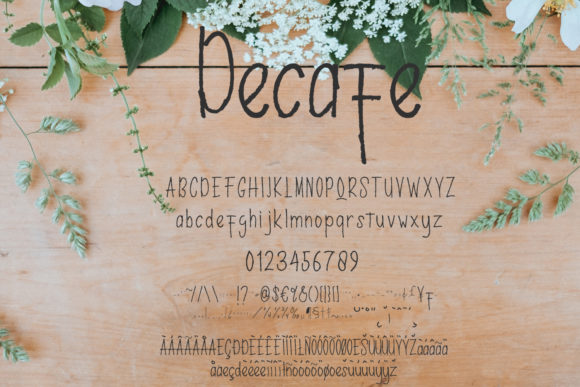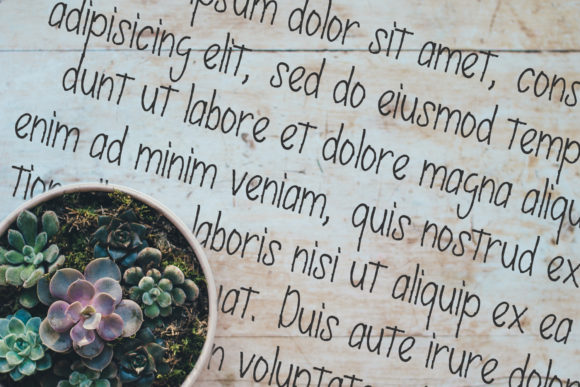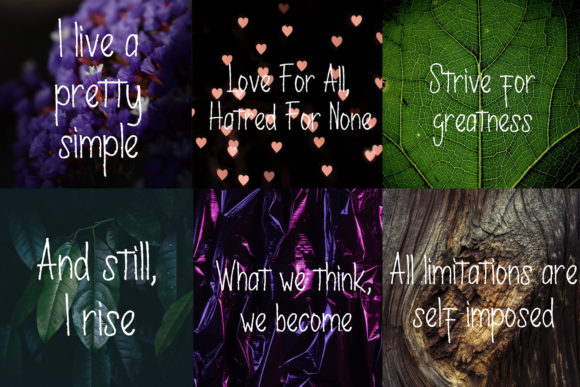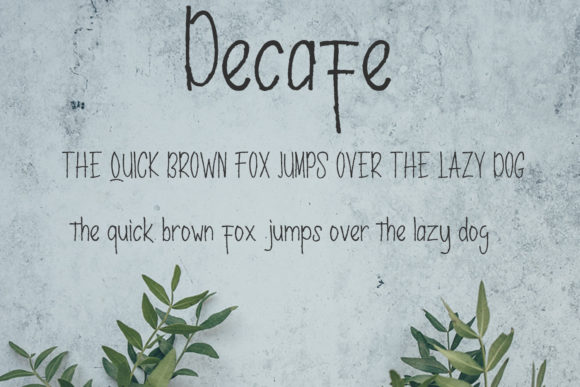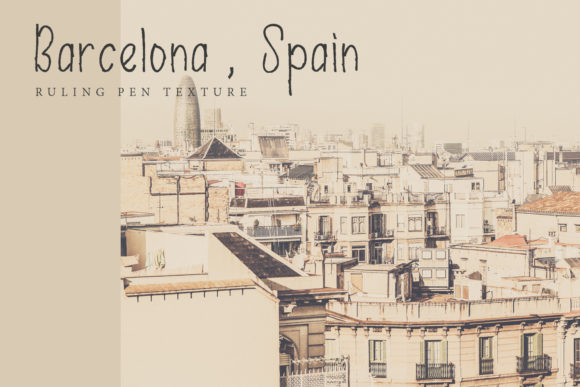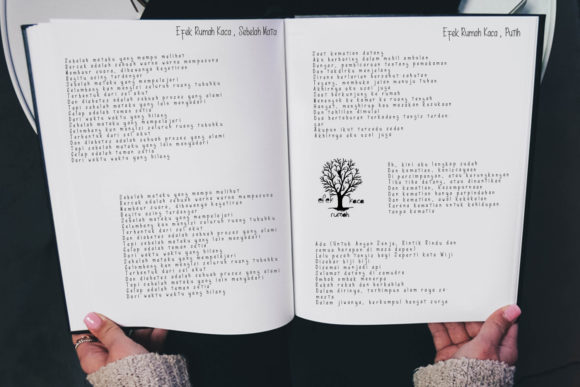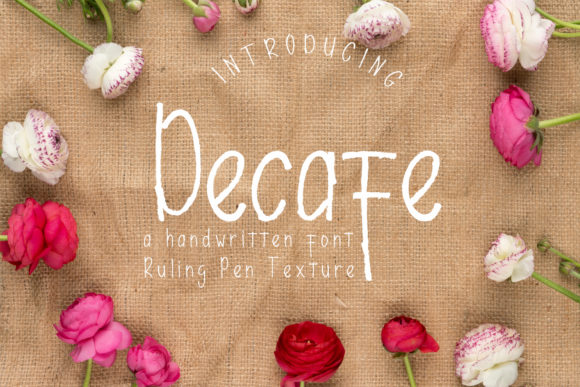
Introducing Decafe Font: The Epitome of Modern Elegance
In the realm of typography, fonts play a pivotal role in conveying messages, evoking emotions, and setting the tone for various design projects. Among the myriad of fonts available, Decafe stands out as a beacon of modern sophistication. This article delves into the essence of Decafe, exploring its characteristics, uses, and the inspiration it offers to designers and crafters alike.
The Essence of Decafe Font
Decafe is a simple, yet elegant script that embodies a modern feel. Its design is a perfect blend of contemporary charm and classic sophistication, making it a versatile choice for a wide range of design projects. Whether you’re working on a branding campaign, a website, or crafting a beautiful piece of art, Decafe offers the perfect balance of style and readability.
Characteristics of Decafe
- Modern Aesthetic: Decafe boasts a clean and minimalist design that aligns with current design trends. Its sleek lines and curves give it a fresh and modern look.
- Elegant Script: The font features elegant strokes that add a touch of sophistication to any design. Its script style is not overly ornate, making it versatile for various applications.
- Readability: One of the key strengths of Decafe is its high readability. Even at smaller sizes, it remains clear and legible, making it suitable for body text and headings.
- Versatility: Decafe can be used across multiple platforms and design projects. From digital media like websites and social media graphics to print materials such as brochures and posters, it adapts seamlessly.
Decafe’s contemporary charm is a rich source of inspiration for designers and crafters. Its modern feel encourages creativity and experimentation. Here are a few ways Decafe can inspire your next project:
- Branding and Logos: Use Decafe to create sleek and memorable logos or to develop a cohesive brand identity that speaks of elegance and modernity.
- Web Design: Enhance your website’s aesthetic with Decafe, making it more engaging and visually appealing to visitors.
- Art and Craft: For crafters, Decafe can be a valuable asset in creating beautiful hand-made cards, journals, and other craft projects that require a touch of elegance.
- Typography Projects: Explore the creative possibilities of Decafe in typography-focused projects, such as quotes, posters, and banners.
Decafe font is a remarkable addition to the world of typography, offering a perfect blend of simplicity, elegance, and modernity. Its versatility and readability make it an excellent choice for designers and crafters looking to add a touch of sophistication to their projects. Whether you’re aiming to create a stunning brand identity, a beautiful website, or a heartfelt craft project, Decafe is sure to inspire and elevate your design.
Embrace the contemporary charm of Decafe and discover a world of creative possibilities at your fingertips.